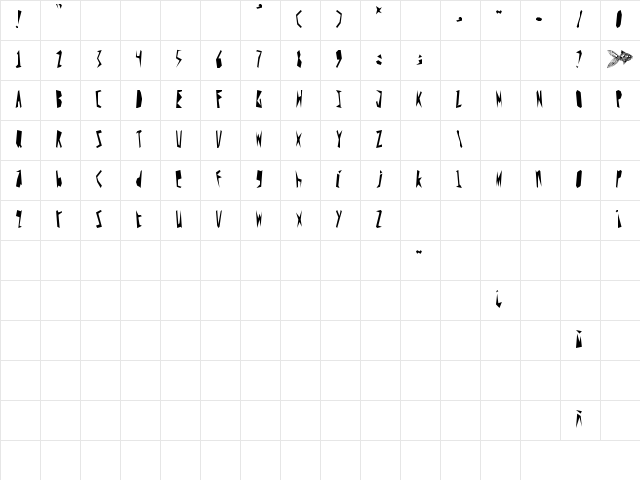
YEH ALRIGHT Free Font
YEH ALRIGHT
Style: ALRIGHT
Designer: *dibujado*
Design Context for YEH
YEH is a composed and adaptable typeface that performs quietly and consistently across a wide range of design contexts.